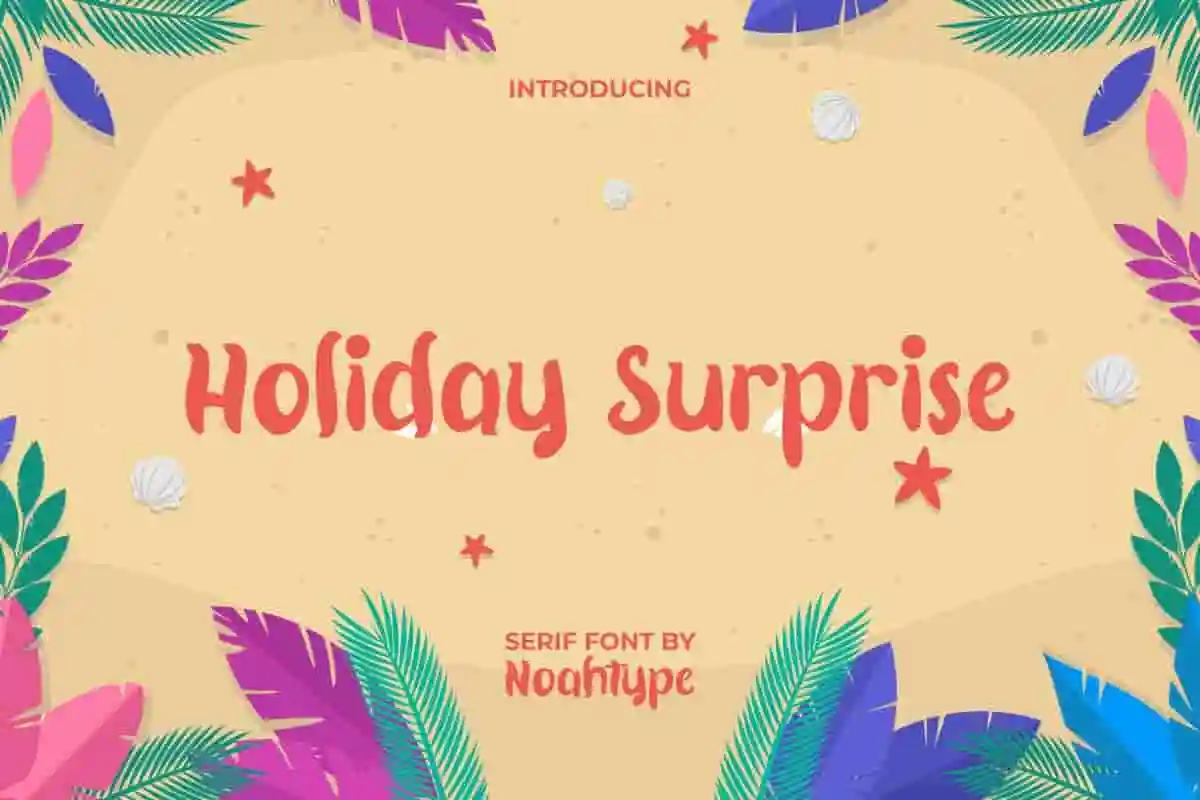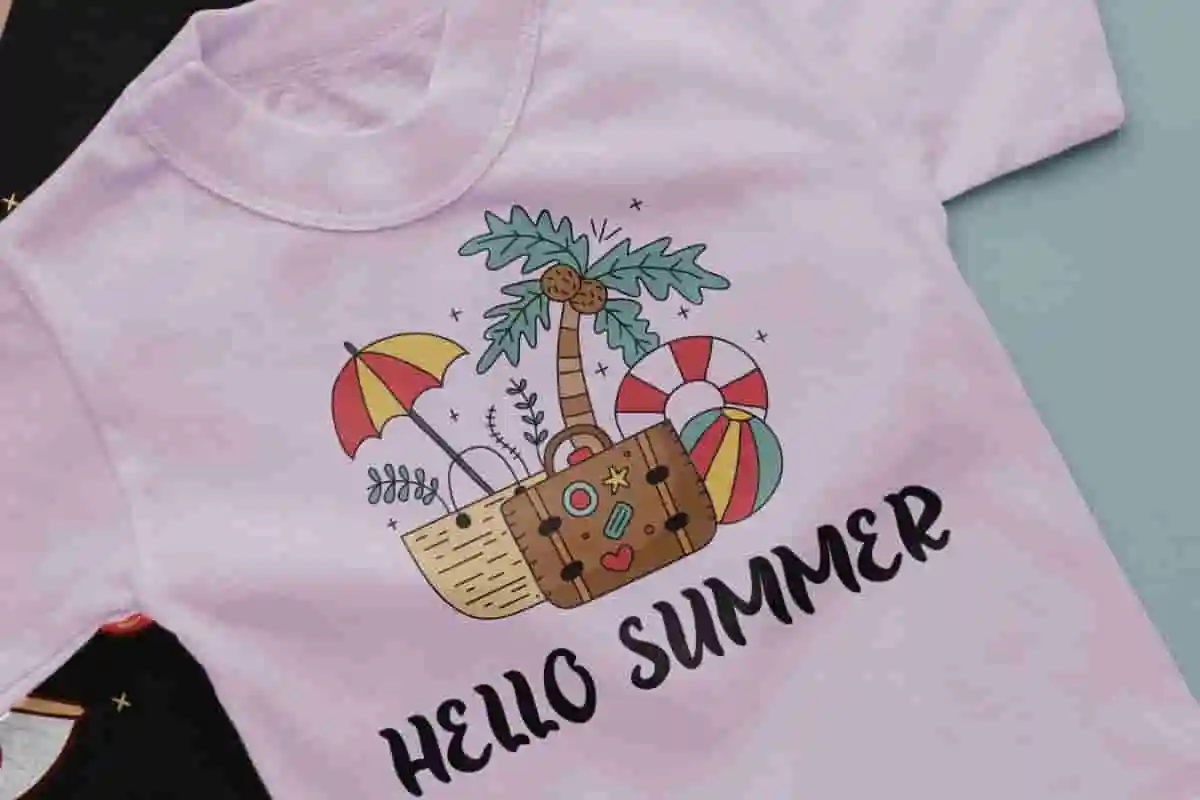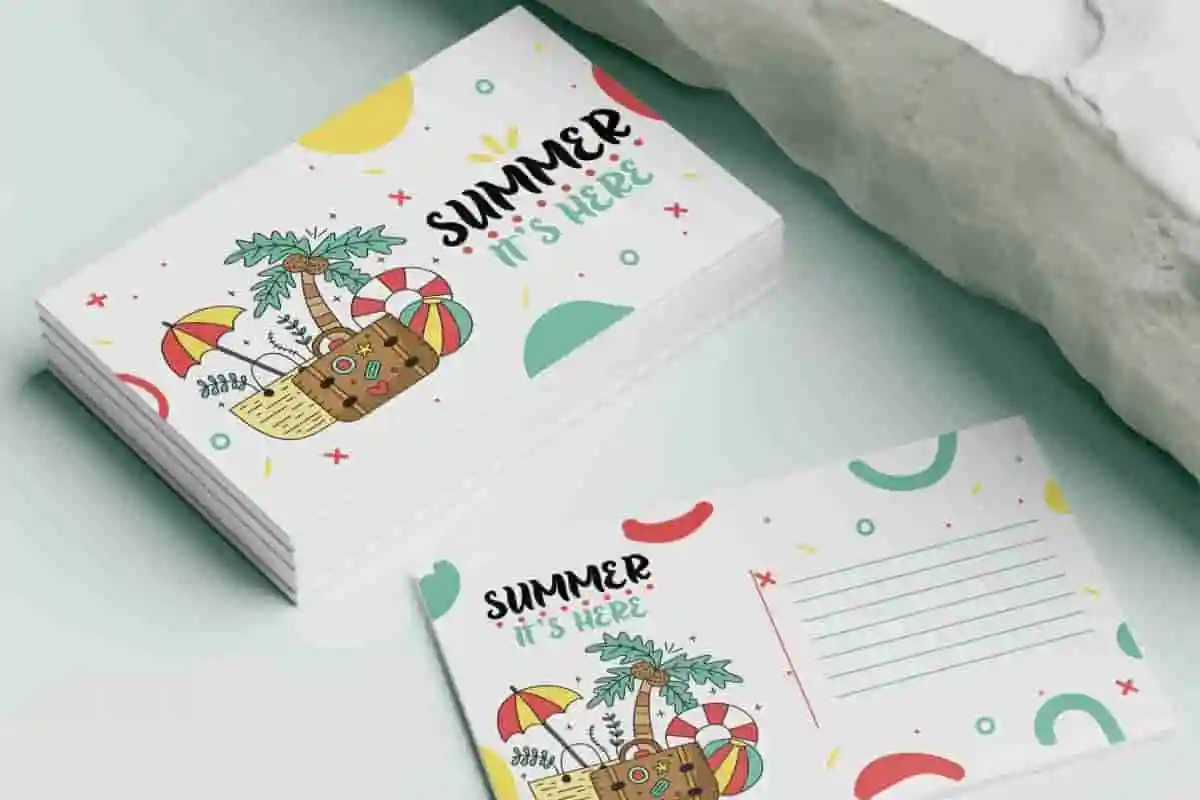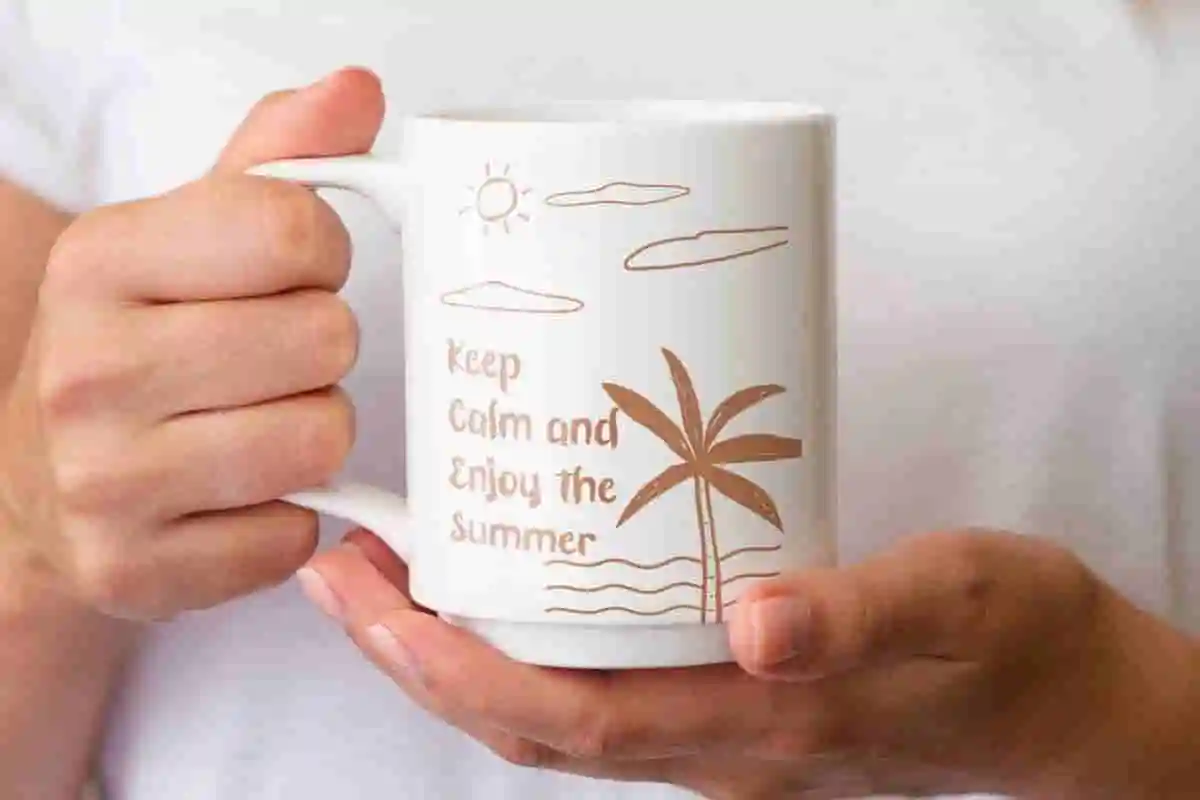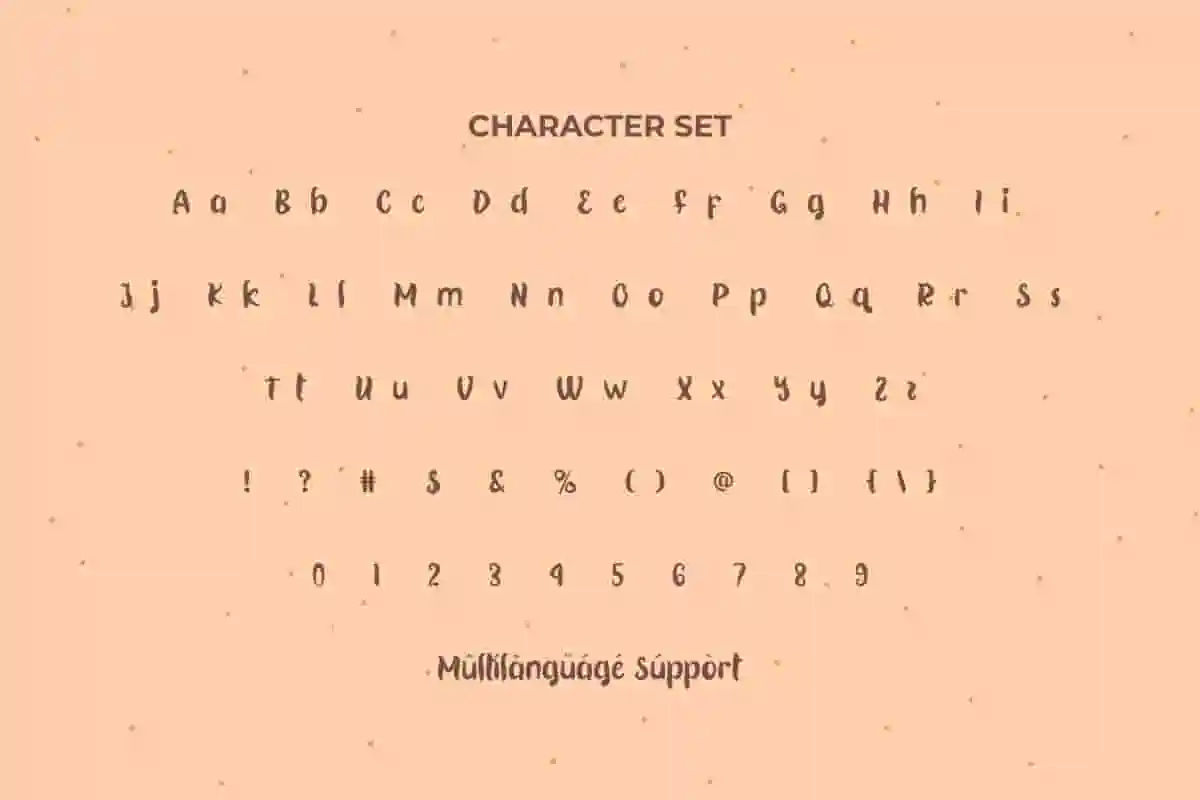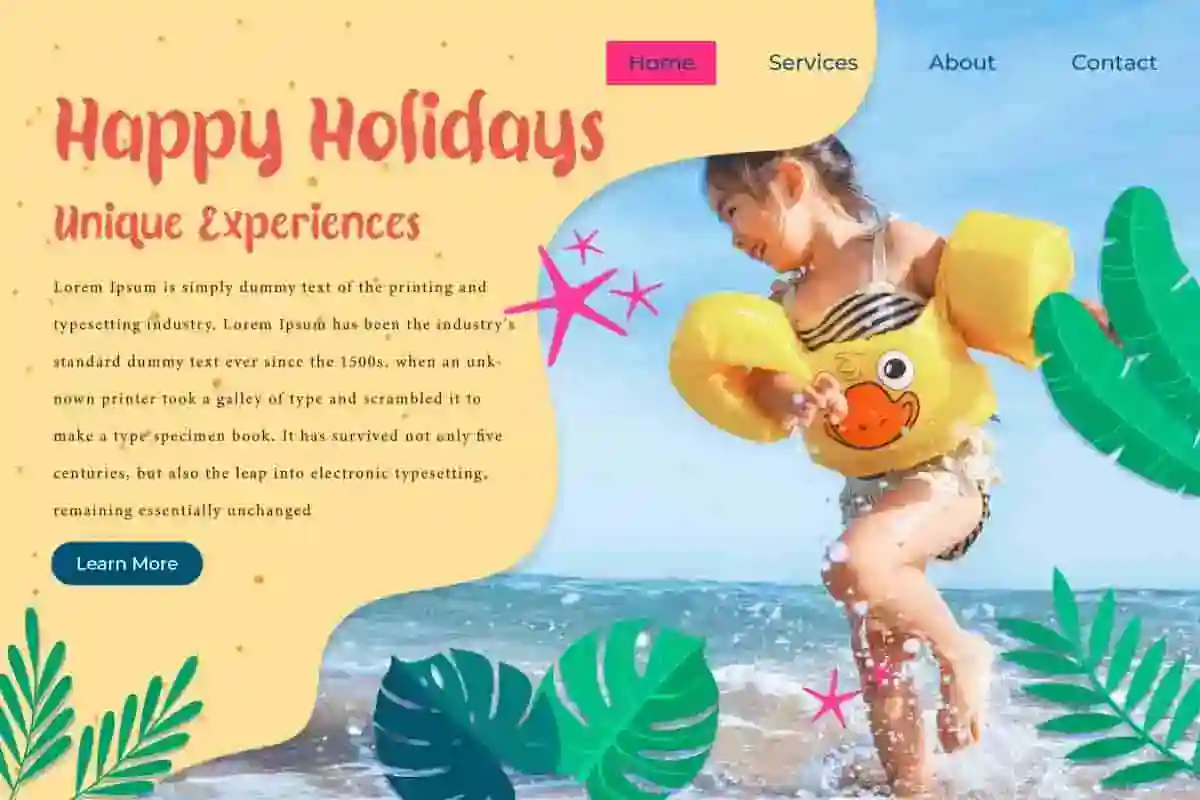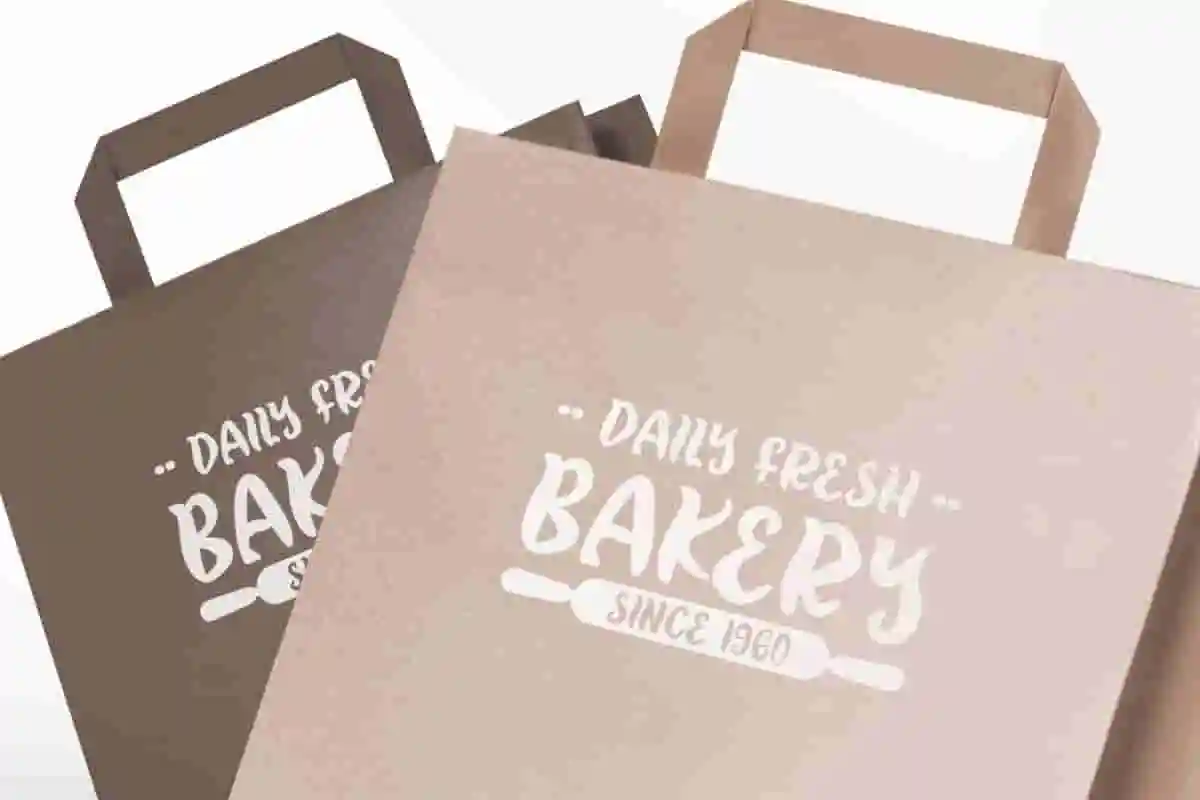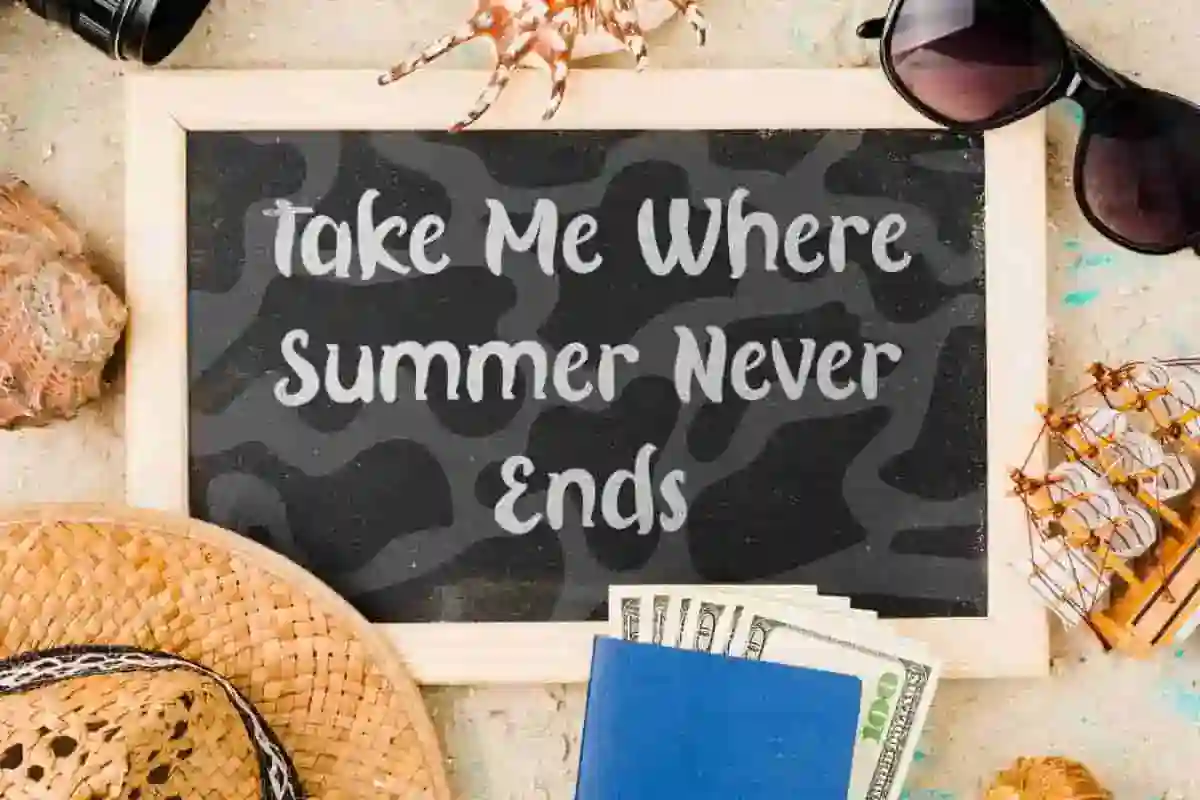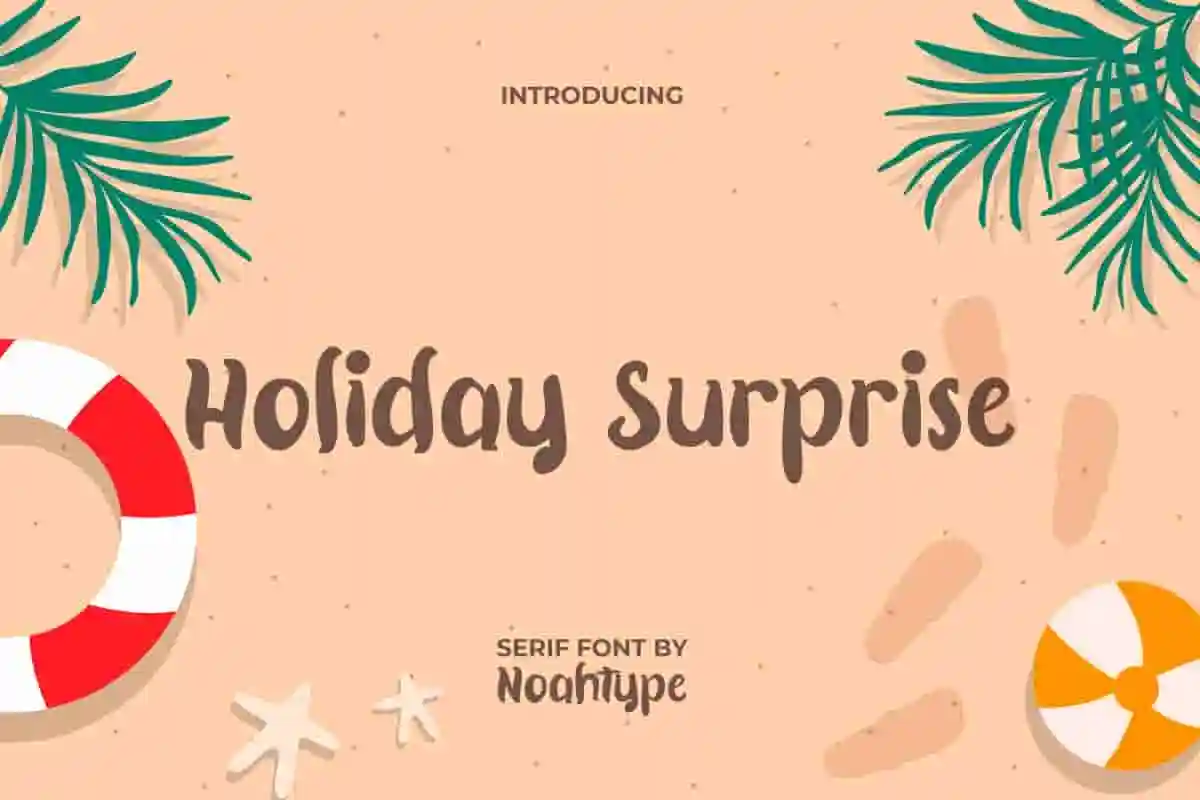
Holiday Surprise Font is a charming big fun cartoon display font with serif touch designed by NoahType. This font evokes the freshness of a summer vacation where the shadows of the beach fill your head. It will be good for any designs, such as brand image, business card, catalog, custom design, invitation, label, poster, product packaging, quote, stationery, website, and more!
Holiday Surprise Font includes full set of Uppercase and Lowercase Basic Characters, Numerals, Punctuation, and Symbol. The characters of this font will give your design fresh looks and perfect choice for many industries, such as advertisement, beach accessories, café, event or festival, fashion, kids stuff, printing, publishing, tourism object, etc.